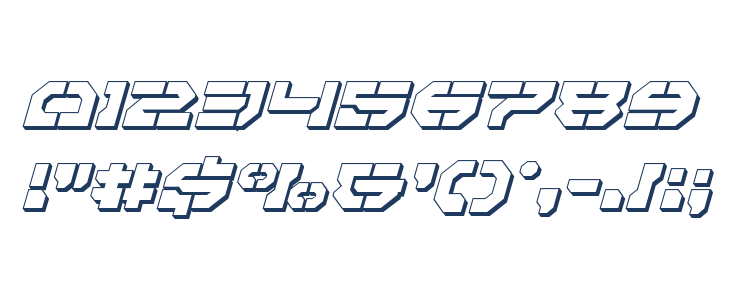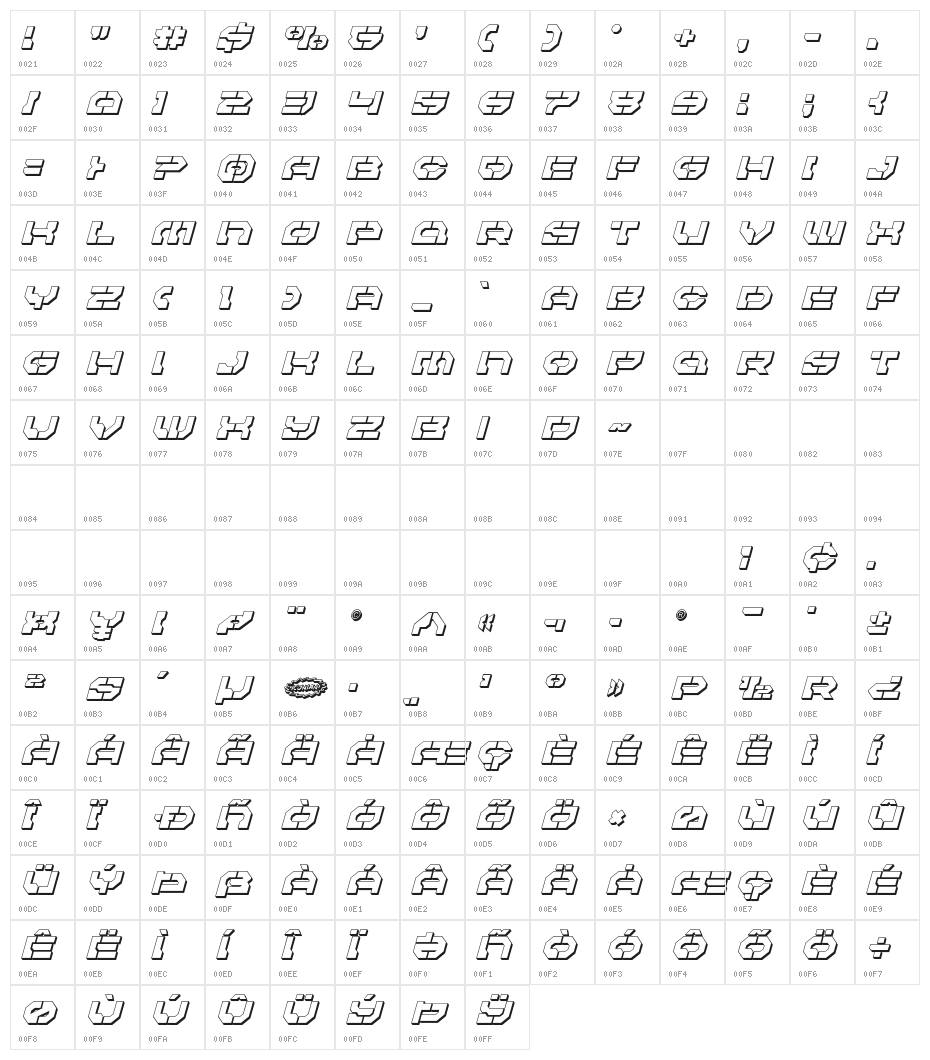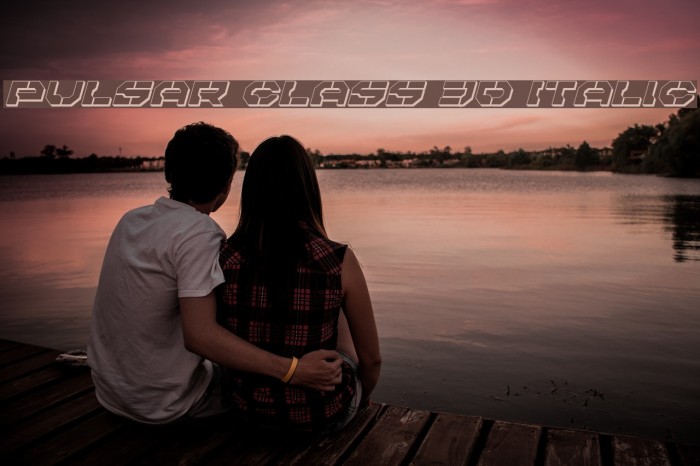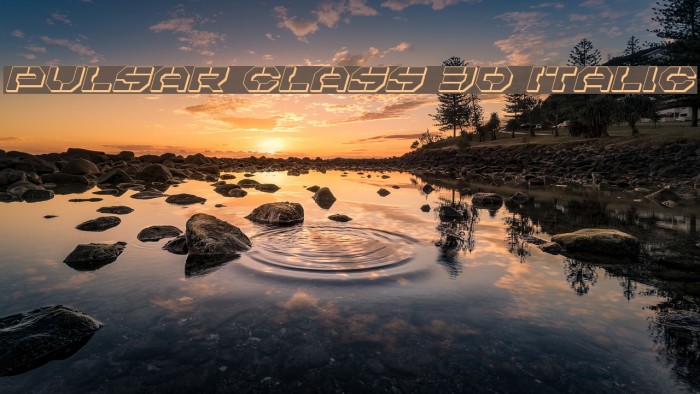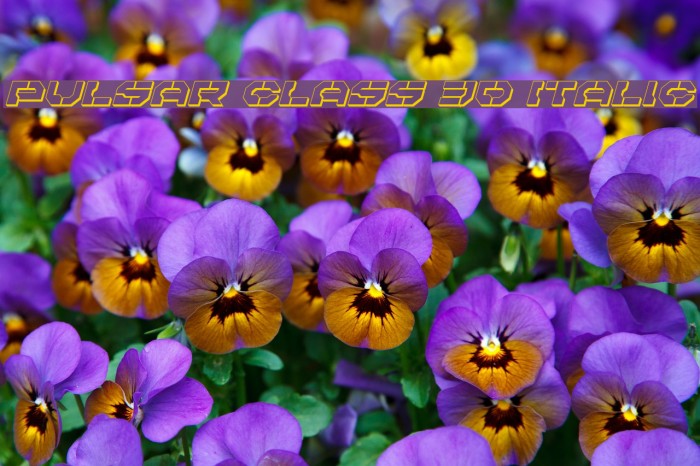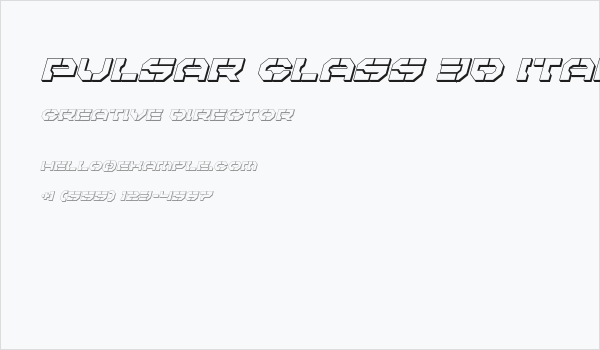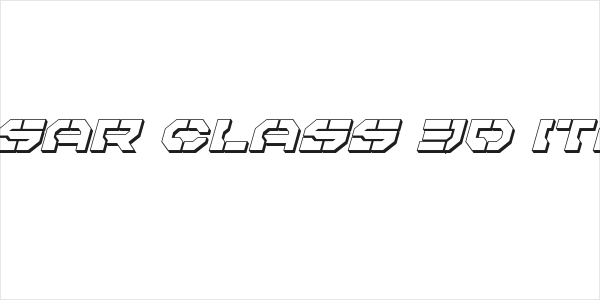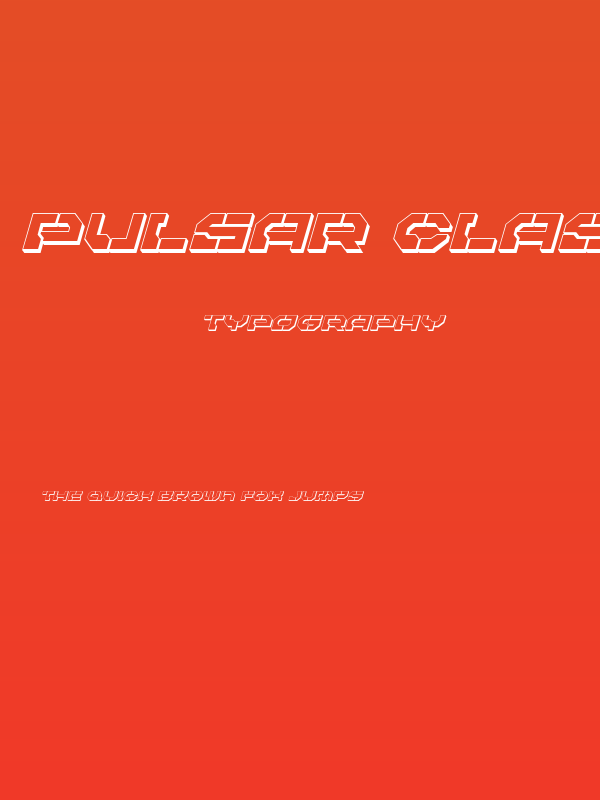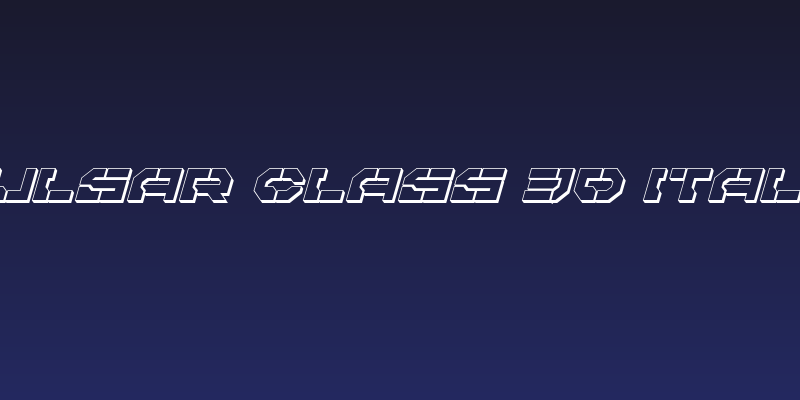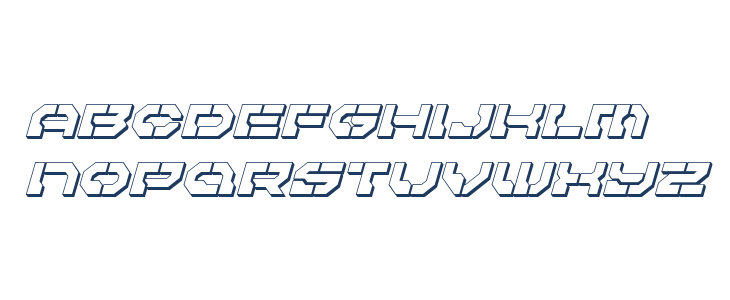
Pulsar Class 3D Italic Font
Pulsar Class 3D Italic Description
This font features a bold, futuristic design with a 3D effect that gives each character a sense of depth and dimension. The letters are angular and geometric, with sharp edges and a consistent italic slant that adds a dynamic feel. The outline style enhances the 3D illusion, making it stand out on any page. The font is highly stylized, making it suitable for projects that require a modern and tech-savvy appearance. It includes a full set of uppercase and lowercase letters, numbers, and a variety of special characters, all maintaining the same bold and angular aesthetic.
| Proposed Projects | Ideal for sci-fi themed posters, video game titles, tech company logos, and futuristic branding materials. |